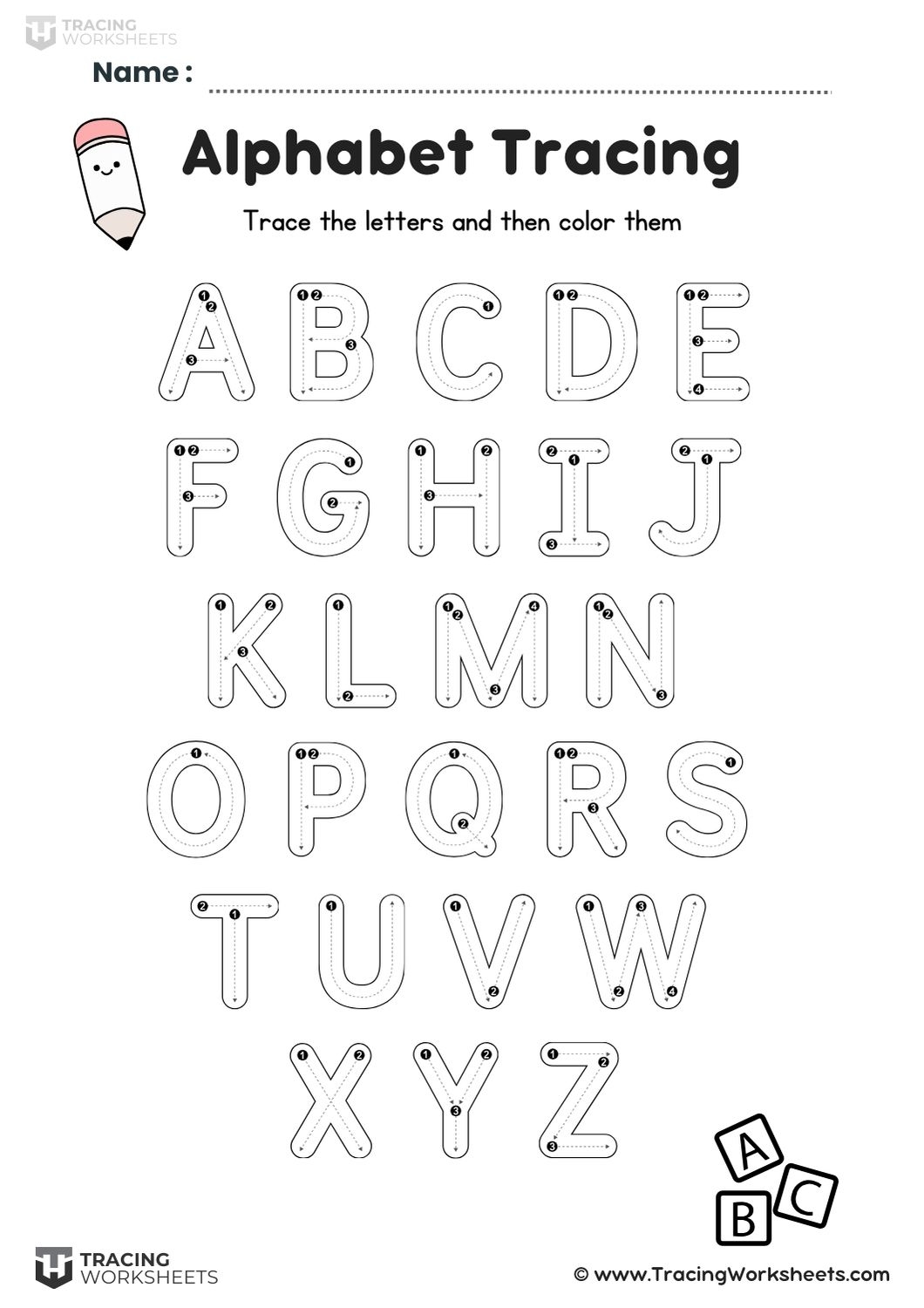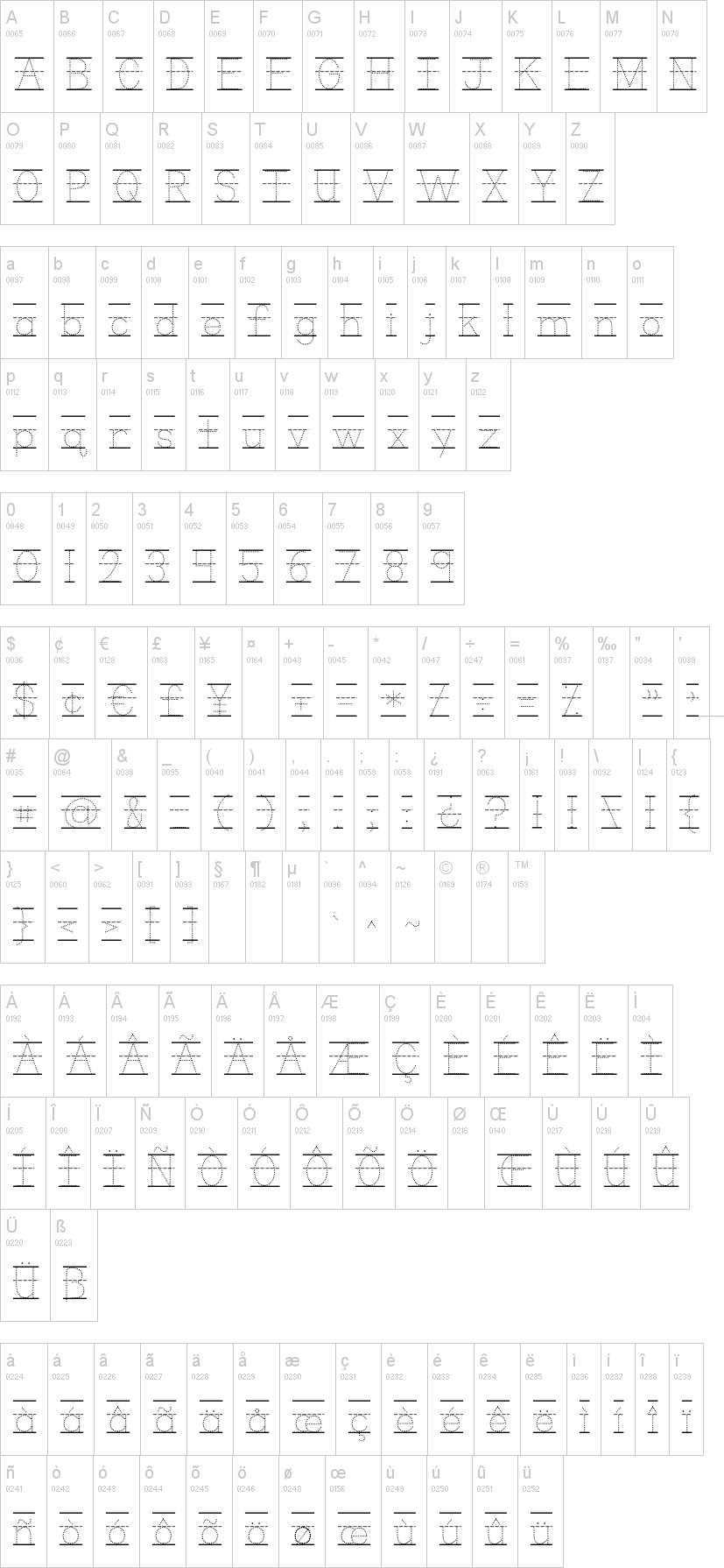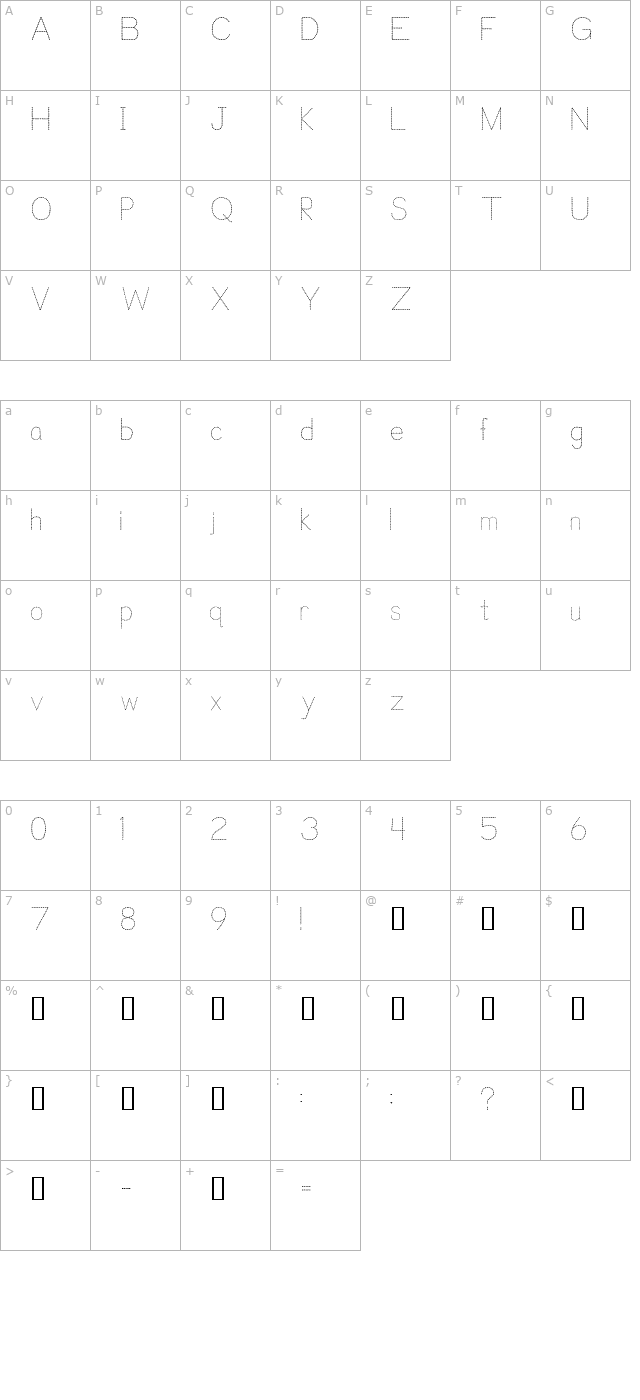
Finding the right tools for teaching kids can be a challenge. One effective method is using dotted letter tracing fonts, which help children learn to write letters and numbers with ease. These fonts make learning fun and engaging.
Using these fonts, you can create personalized worksheets tailored to your child’s needs. This customization helps maintain their interest and motivation while practicing writing. Plus, it allows for creativity in designing fun learning materials.
Incorporating dotted letter tracing into daily routines can significantly improve a child’s writing skills. Regular practice not only enhances their ability to form letters but also boosts their overall confidence in writing tasks.
Embracing tools like dotted letter tracing fonts can transform the learning experience for children. With free downloads available, parents and teachers can easily access these resources to support young learners on their writing journey.